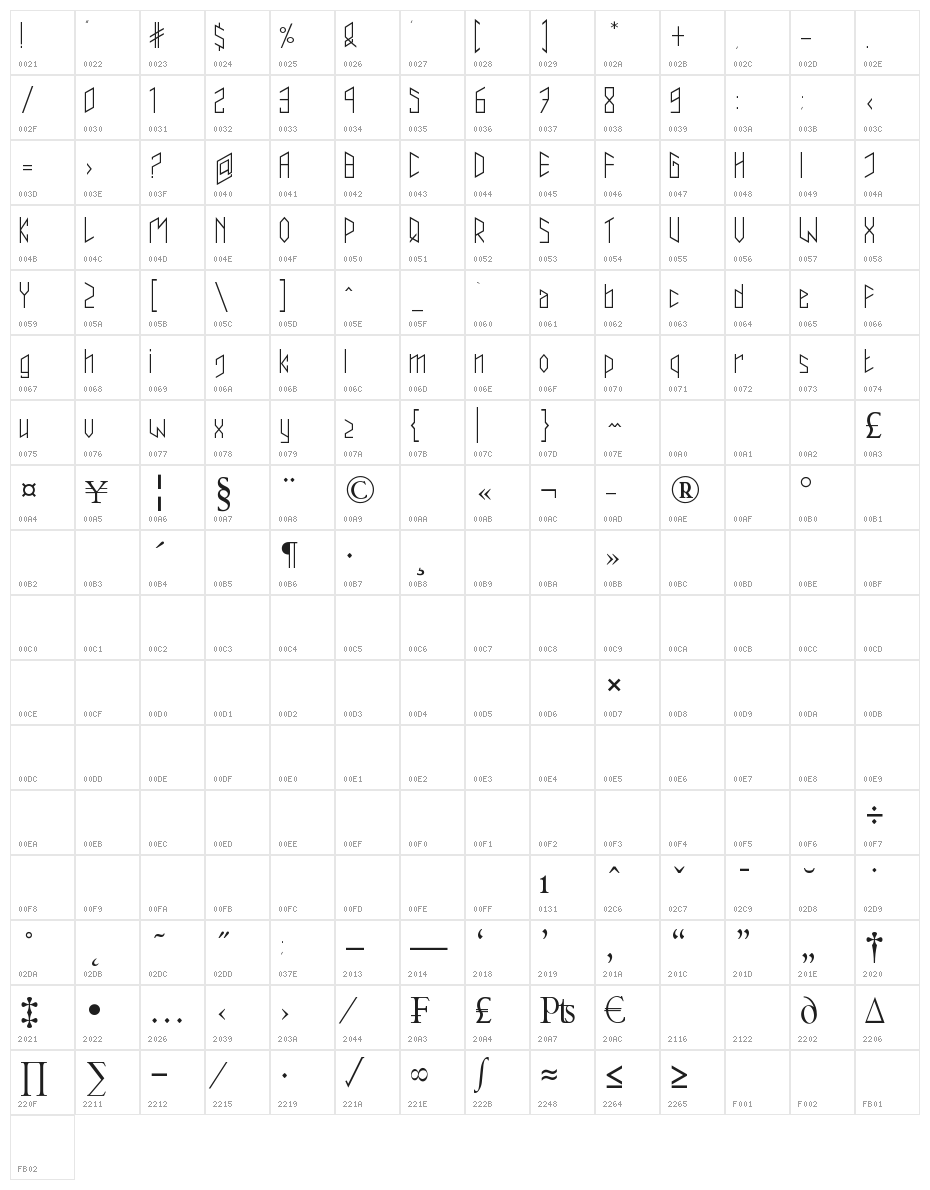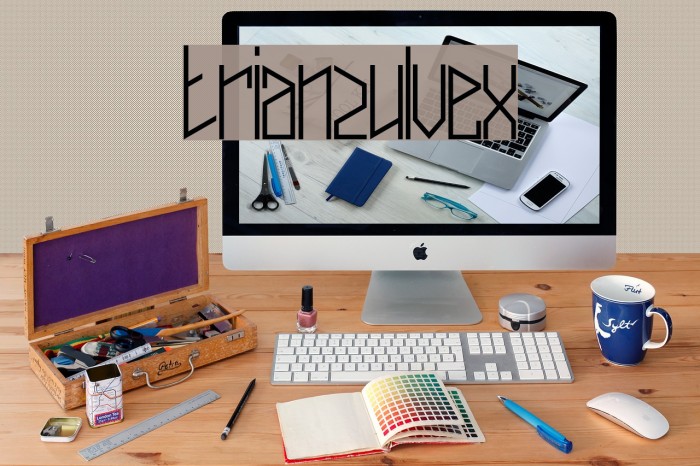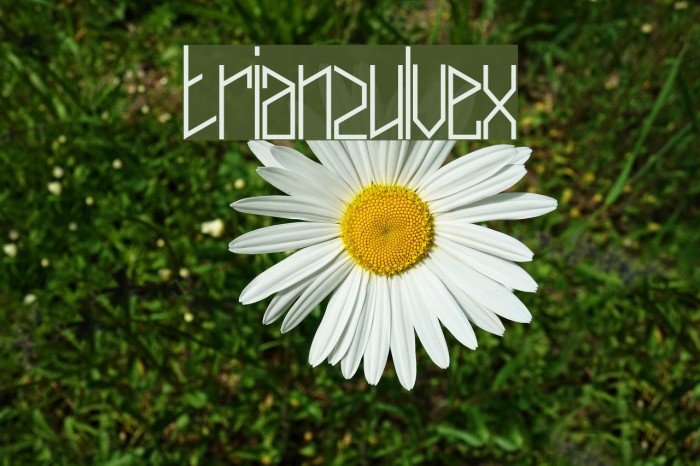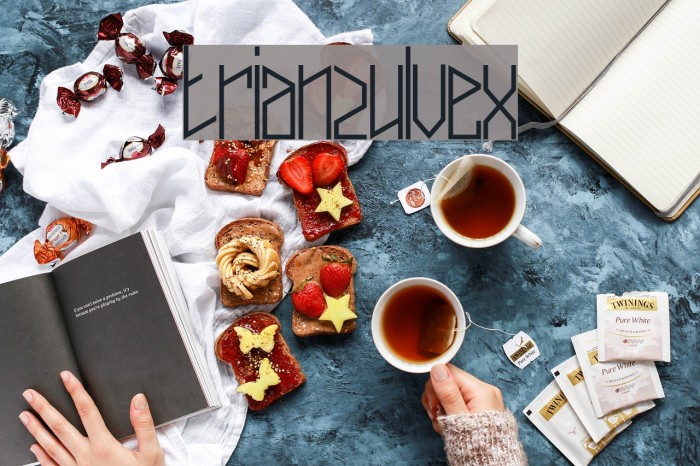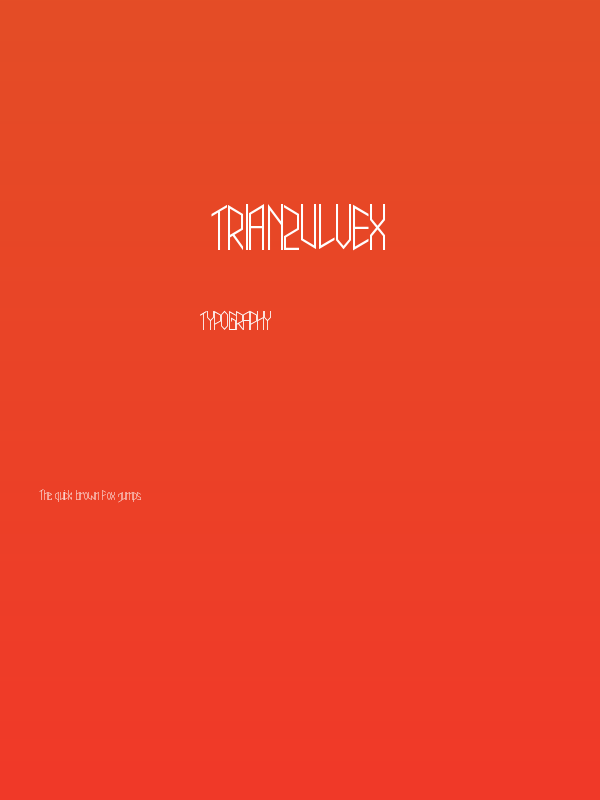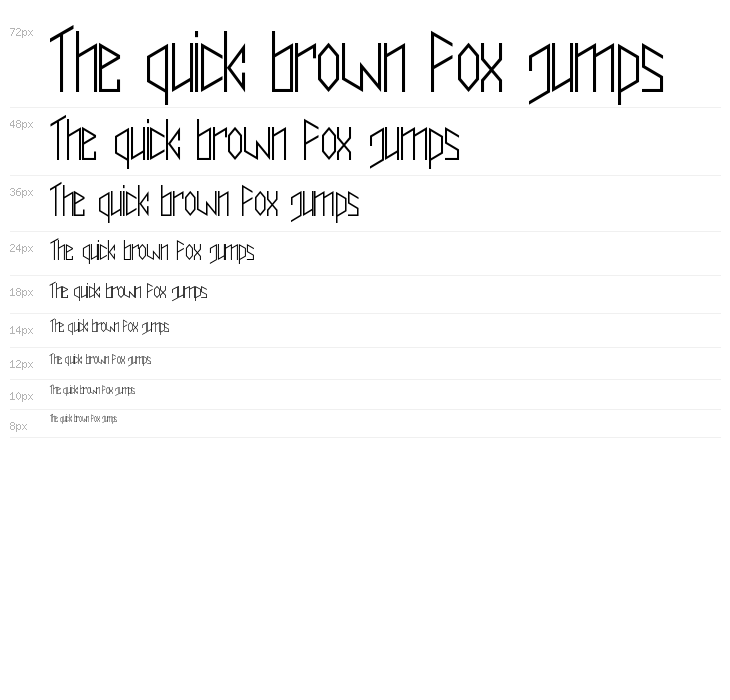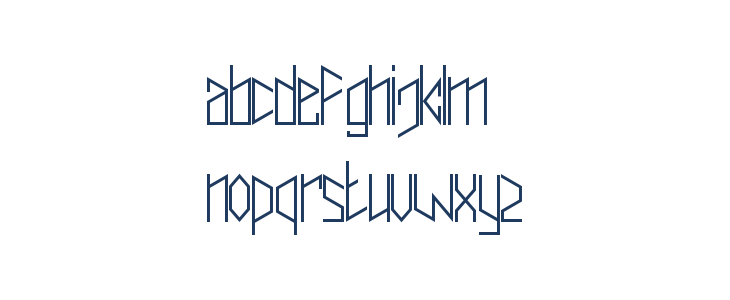
trianzulvex Font
trianzulvex Description
This font features a geometric and angular design, characterized by sharp edges and a futuristic aesthetic. The uppercase and lowercase letters maintain a consistent height, creating a uniform appearance. The numerals and special characters follow the same angular style, enhancing the overall cohesive look. The strokes are thin, contributing to a sleek and modern feel. This font is ideal for projects that require a distinctive and edgy appearance, such as technology-related branding or modern art displays.